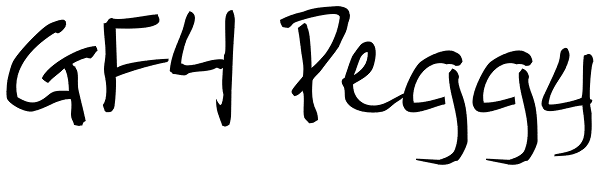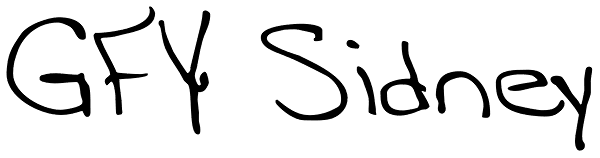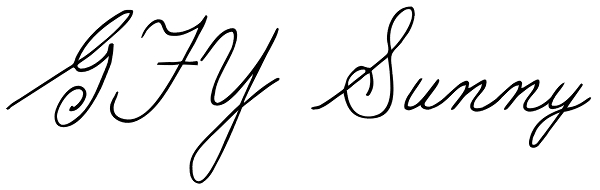
GFY Handwriting Fontpak
Go font yourself! The GFY Handwriting Fontpak is your complete handwriting font solution, a super-saver collection of 21 handwriting fonts, both cursive and print, drawn by real people and fontified by internet font pioneer Chank Diesel. Filled...